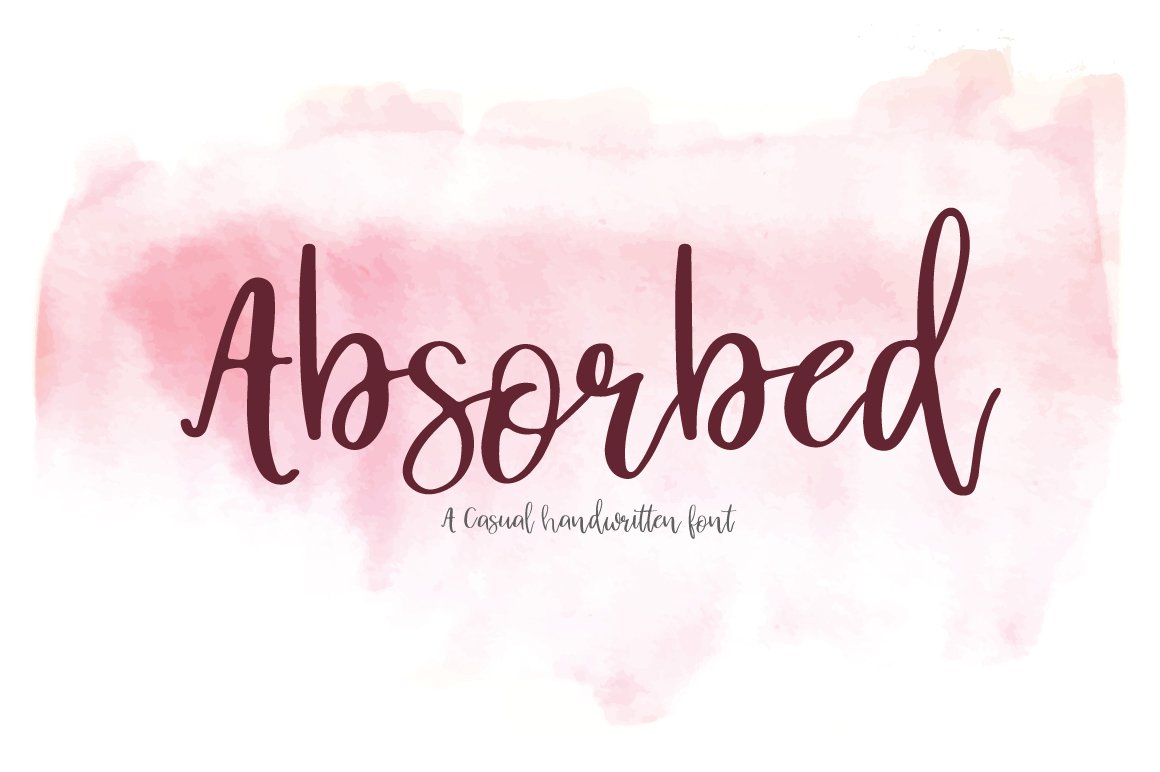
Adding a Personal Touch to Your Designs
Have you ever found yourself scribbling down a brilliant idea on a sticky note, only to realize that the messy handwriting has become the focal point of your creative moment? That’s exactly what inspired the creation of the Absorbed Font, a beautiful handwritten font designed by Nursery Art.
This charming font is perfect for adding a personal touch to your designs, making it stand out from the crowd. The Absorbed Font is a valuable asset for designers looking to infuse their work with a sense of warmth and character.
With its unique, handwritten style, the Absorbed Font is sure to capture the essence of your brand’s personality, making it a must-have for any designer looking to elevate their work.
Key Features of Absorbed Font
- Unique Characteristics: The font features a unique, abstract design with a focus on organic shapes and subtle texture, making it perfect for creative and artistic projects.
Designer Review: Absorbed Font
Overall, I’m impressed with the unique aesthetic of the Absorbed Font. It has a refreshing and quirky vibe that can work well for creative projects or branding that needs a bit of personality.
- ✨ The font’s organic feel and irregular shapes add a nice layer of visual interest to any text.
- ✨ The font’s ability to work well in both display and body text contexts is a major plus.
- ✨ The font’s versatility in terms of pairing with different colors and backgrounds is impressive.
- ⚠️ The font may not be the best choice for projects that require a high level of professionalism or traditional typography.
- ⚠️ Some users may find the font’s irregular shapes and letterforms challenging to read, particularly at smaller sizes.
- ⚠️ The font’s unique aesthetic may not appeal to everyone, and some users may find it too distracting or unconventional.
Overall, I think the Absorbed Font is a great choice for projects that need a bit of flair and personality. While it may not be the best fit for every project, it’s definitely worth considering for those that require a unique and eye-catching typographic solution.
The Absorbed Font is ideal for:
- Body text in creative projects
- Designing invitations and event materials
Alternatives to Absorbed Font
Open Sans is a clean and modern sans-serif font that is highly legible. It is ideal for body text, particularly in digital interfaces. When to use: Open Sans is a great choice for websites, mobile apps, and other digital products where readability is crucial.
Comparison to Absorbed Font: Open Sans is more modern and clean, whereas Absorbed Font has a more relaxed, handwritten feel. Open Sans is also more versatile and can be used in a variety of contexts, whereas Absorbed Font is better suited for creative or artistic projects.
Lato is a sans-serif font that is highly customizable and adaptable. It is ideal for use in a variety of contexts, from body text to headings. When to use: Lato is a great choice for websites, branding, and other projects where a clean and modern look is desired.
Comparison to Absorbed Font: Lato is more modern and sleek, whereas Absorbed Font has a more traditional, handwritten feel. Lato is also more versatile and can be used in a variety of contexts, whereas Absorbed Font is better suited for creative or artistic projects.